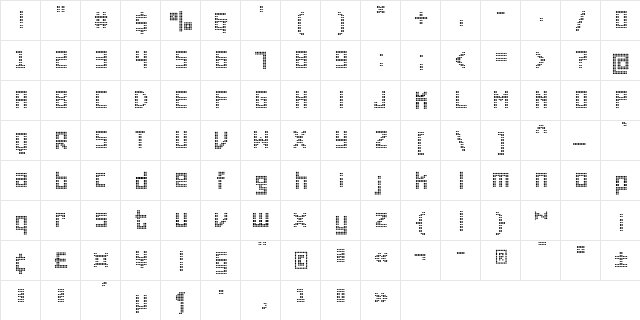
PF Online One Pro Double Regular
| Designer | Panos Vassiliou |
Design Context for PF Online One Pro Double Typeface
PF Online One Pro Double takes a measured approach to typography — its balanced proportions and neutral character make it a reliable workhorse for both digital and print work.
Pro Tip: Use PF Online One Pro Double in both headline and body roles to test its range before committing to a single application.